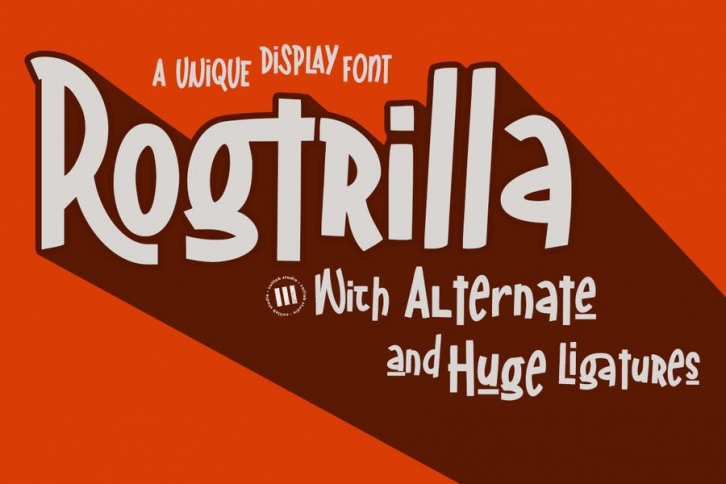
Rogtrilla - A Unique Display Font Download
Rogtrilla is a unique display font that is suitable for design projects; playful theme, logo, branding, poster, quotes, display, beautiful stationary art, eye-catching social media posts, and cute greeting cards, and any other designs.
• Huge Ligatures
• Some Alternates
• Full uppercase and lowercase glyphs
• Numbers, punctuations, and symbols